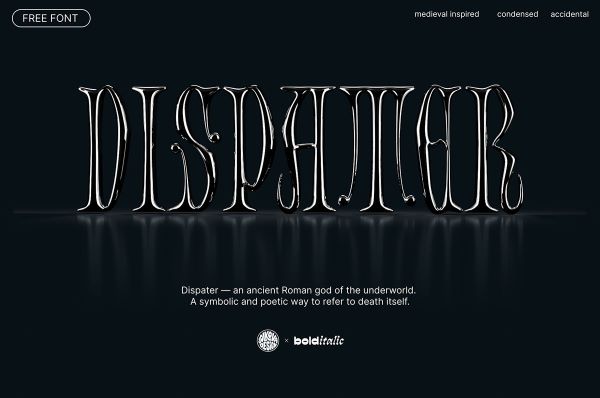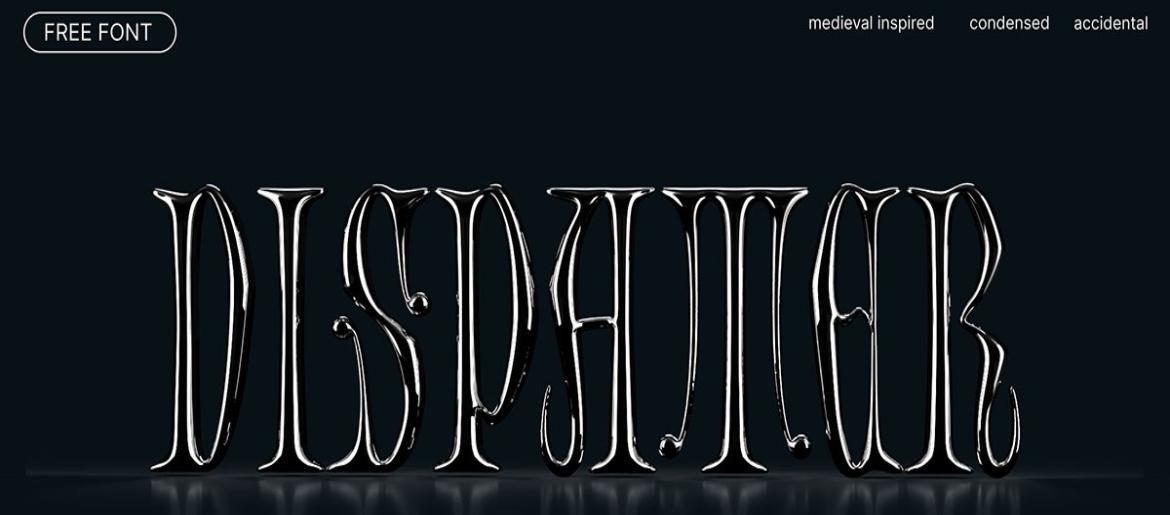
Dispater by Liubov Volkova is an accidental narrow unicase display typeface drawing on dark medieval aesthetics and the dramatic elegance of Lombardic capitals. Its long, tail-like terminals and elongated features — particularly in letters like T, F, L, and Г — end in sweeping teardrop shapes that give the face a winding, surreal character. A variable font available in five weights, it supports all European languages in both Latin and Cyrillic scripts, including Ukrainian, Serbian, Belarusian, and Russian, complete with a rich set of ligatures. Free for personal and commercial use.
Dispater is a striking addition to our free font collection, designed by Valencia-based type designer Liubov Volkova with art direction by Dmitry Goloub — a collaboration that merges gothic intensity with contemporary type craft. Each individual character stands out beautifully on its own, making it as powerful in isolation as it is in composition. Browse our full library of free fonts and discover more distinctive typefaces crafted by independent designers around the world.